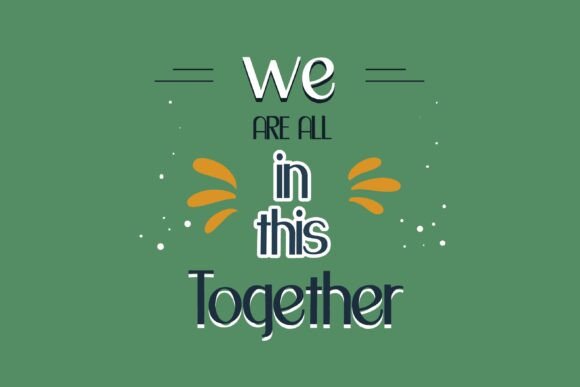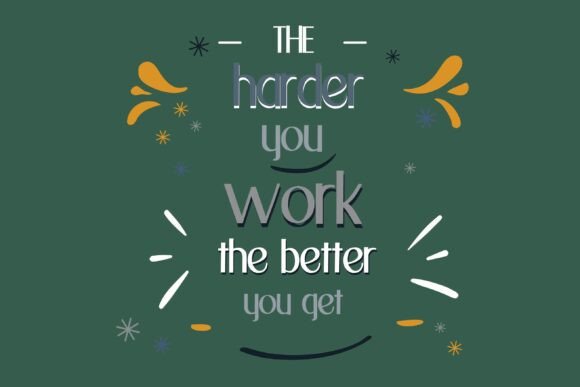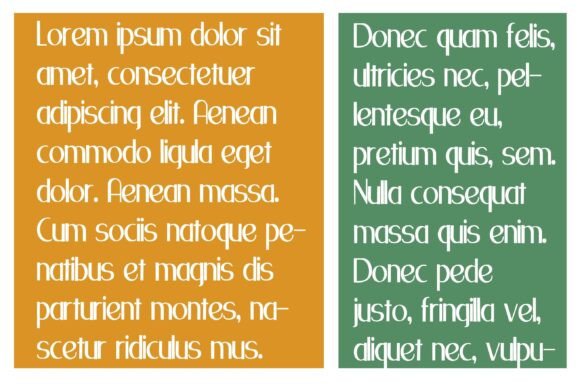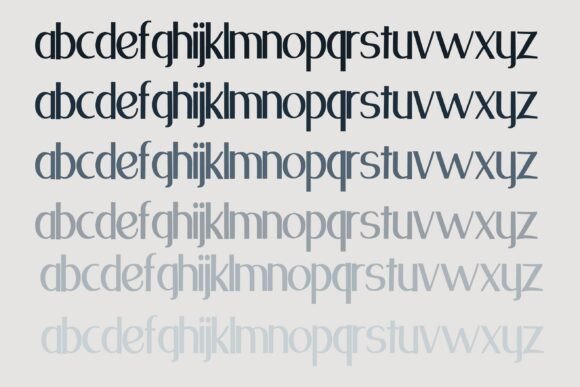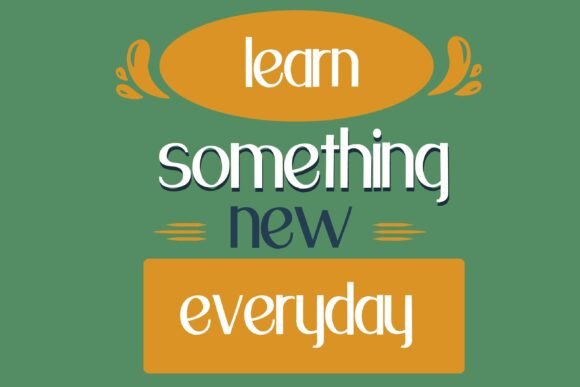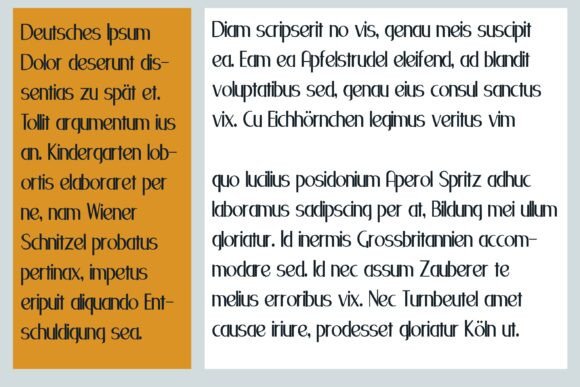
Unleashing the Artistic Flair with Chameleon Font
As a designer, have you ever stared at a blank page, waiting for inspiration to strike? Perhaps you’ve rummaged through your font collection, searching for the perfect fit for your next project. For many of us, this moment of creative uncertainty is a familiar feeling. But what if I told you there’s a font that can help you tap into your artistic side and add a personal touch to your designs?
Meet the Chameleon Font, a hand-crafted sans serif designed to evoke a sense of handwritten elegance. With its perfect blend of thin and thicker lines, this font is a versatile addition to any designer’s toolkit. Whether you’re creating invitations, greeting cards, or any other project that requires a touch of personality, the Chameleon Font is a valuable resource that can help you stand out from the crowd.
Key Features of Chameleon Font
- Font Family: Chameleon Font is a unique, variable font family that can be used to create a wide range of styles and effects.
- Unique Characteristics: Chameleon Font features a dynamic, adaptive design that allows it to change shape and style in response to different font sizes, line heights, and other factors.
- Stylistic Sets: Includes a range of stylistic sets that can be applied to create different moods and atmospheres, from elegant and refined to bold and playful.
Chameleon Font Review
As a designer, I was excited to dive into the Chameleon Font and see what it had to offer. Here’s my honest take:
- The font’s versatility is one of its strongest points. It can seamlessly switch between serif and sans-serif styles, making it perfect for a wide range of projects.
- Chameleon Font has a highly customizable approach, allowing users to adjust the font to their liking through the use of various tools and options.
- It’s also worth noting that the font has excellent legibility and readability, making it a great choice for body text.
- One of the main limitations of Chameleon Font is its lack of consistency. The font’s design can sometimes feel disjointed, particularly when used in smaller font sizes.
- Additionally, the font’s customization options can be overwhelming for users who are not familiar with font design.
While Chameleon Font has its strengths, its limitations hold it back from being a top-tier font. However, with some refinement and attention to consistency, it has the potential to be a game-changer in the world of font design.
Chameleon Font is ideal for projects that require a unique and eye-catching text effect. Some common use cases include:
- Designing logos and brand identities.
- Creating social media graphics and ads.
- Developing marketing materials and presentations.
For the most effective use of Chameleon Font, experiment with different font sizes, colors, and combinations to achieve the desired visual impact.